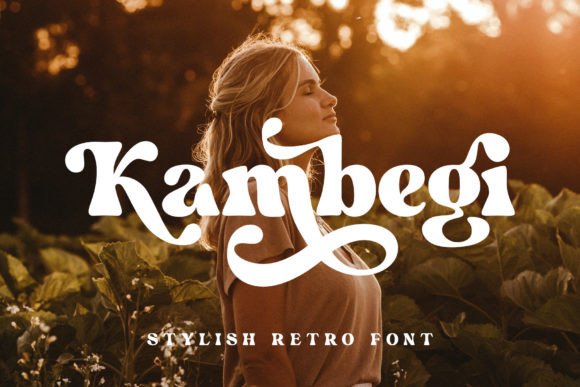
Journey back in time with Kambegi Font, the ultimate retro serif font that oozes charm and personality. With its effortlessly cool and nostalgic vibe, Kambegi transports you to an era of classic design and timeless aesthetics.
This meticulously crafted font family exudes a bold, confident presence, making it the perfect choice for designers seeking to inject a touch of vintage charm into their creations. Its clean lines and modern retro aesthetic create a harmonious balance, ensuring your designs stand out with a unique and captivating aura.
Unleash your creativity and let Kambegi take center stage in your design projects. Whether it's eye-catching logos, stylish branding, captivating posters, or stunning social media graphics, Kambegi effortlessly adds a touch of retro elegance to any concept. Its versatility extends to web design, where it breathes life into headlines, body copy, and navigation elements, creating a cohesive and immersive online experience.
With its extensive range of glyphs and swashes, accessible via Character map or Character Viewer on mac, Kambegi opens up a world of creative possibilities. Experiment with different combinations to add intricate details and flourishes, transforming your designs into true works of art.
Embrace the nostalgia and make a statement with Kambegi Font. Its retro charm and modern appeal will elevate your designs to new heights, leaving a lasting impression on your audience. Take your design game to the next level and download Kambegi today!